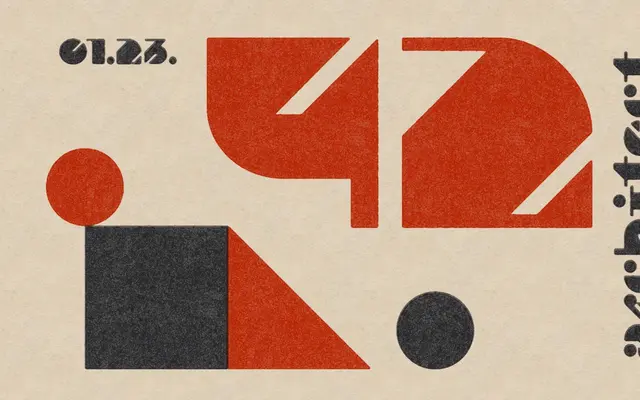
BD Varicolor
A single-weight stencil display face rooted in early-20th-century Art Deco and architectural lettering, suited to titling in art and design publications.
Drawing on the geometric weight and structural quality of Art Deco and early modernist architectural lettering, BD Varicolor offers a heavy stencil character designed for large-scale titling use. The family ships as a single Regular weight covering Western Latin script across ten languages. Its application is narrow but deliberate: posters, magazine headlines and art-adjacent editorial contexts where the period aesthetic is the point.
A heavy-weight stencil display typeface drawing on early-20th-century architectural and Art Deco letterforms, intended solely for titling use rather than text setting.